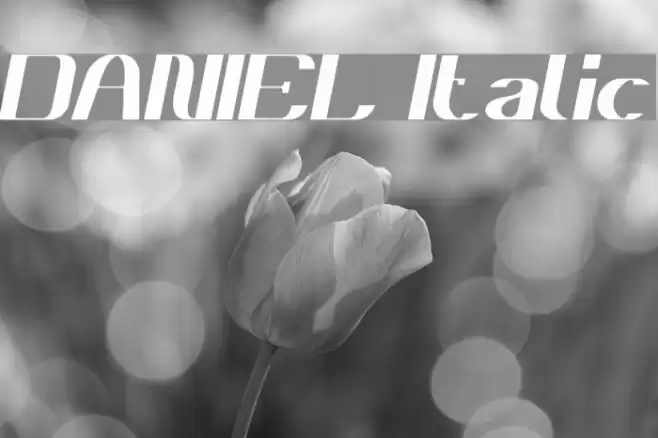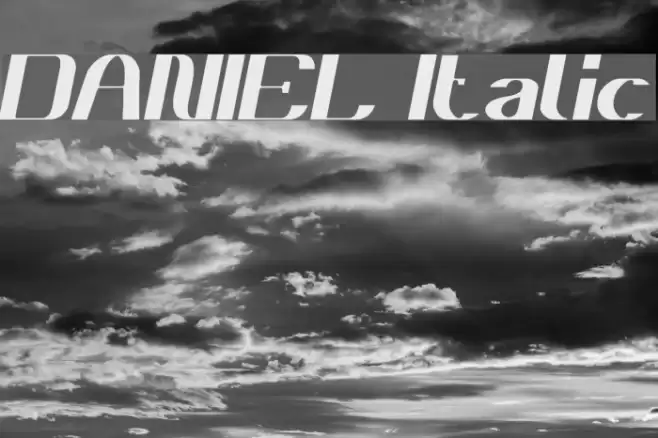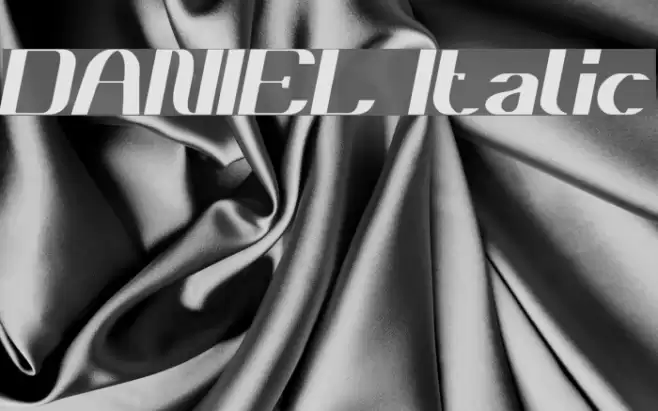
DANIEL Italic Font
DANIEL Italic Description
This font features a dynamic and modern italic style with a strong forward slant, giving it a sense of motion and energy. The characters are bold and have a consistent stroke width, which contributes to a clean and impactful appearance. The uppercase letters are particularly striking, with sharp angles and a sleek design. The lowercase letters maintain the same energetic style, ensuring readability while adding a touch of elegance. The numerals are well-proportioned and align perfectly with the overall design aesthetic. Special characters are thoughtfully designed to match the font's bold and modern look.
A bold, modern italic font with a strong forward slant and consistent stroke width from Uncategorized fonts.
- Proposed Projects: Ideal for branding, advertising, and editorial design projects that require a modern and energetic touch.
- Use Case: Headlines, Logos, Branding